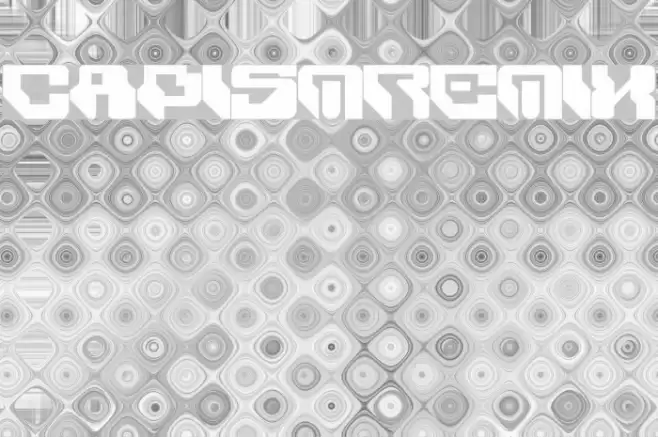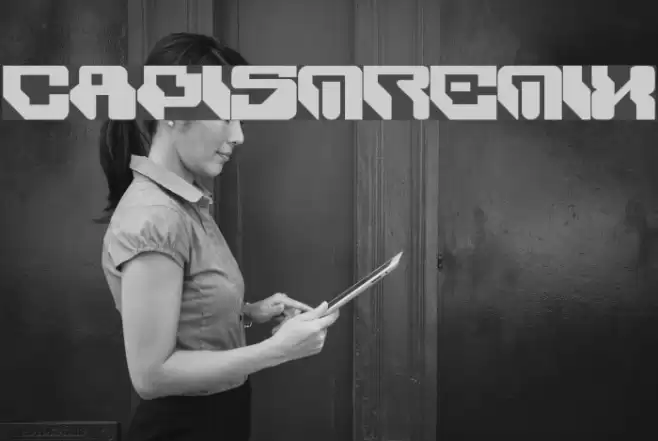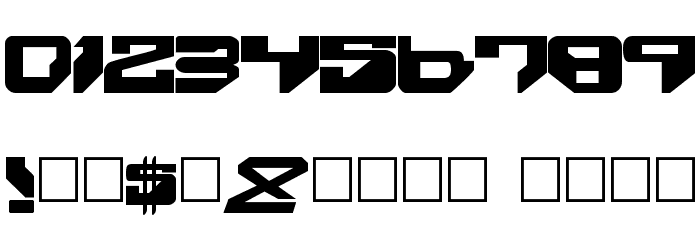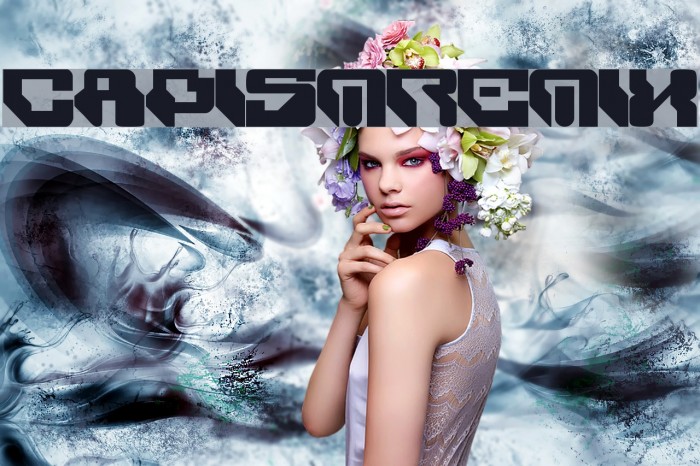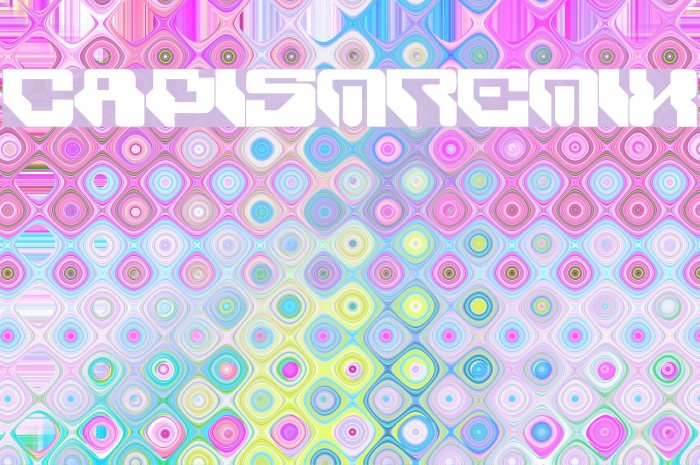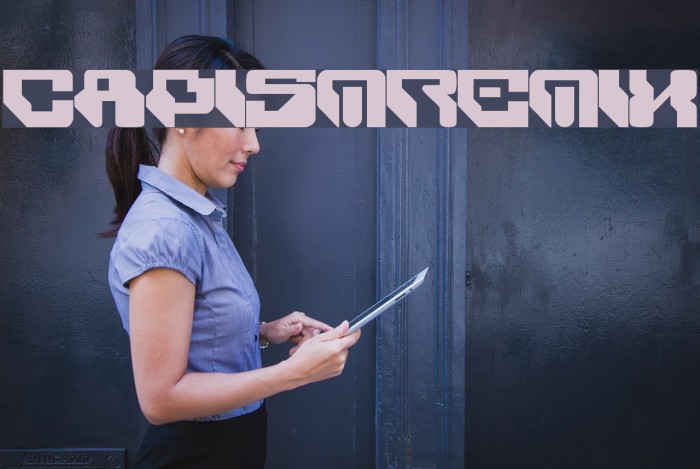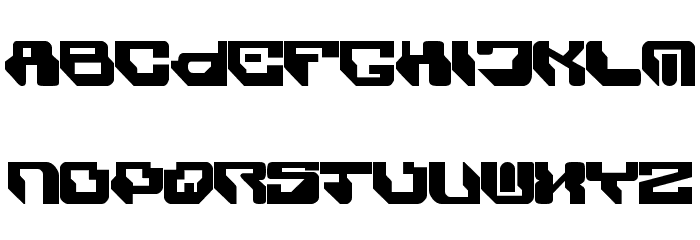
CaptivSystMRemiX Font
CaptivSystMRemiX Description
This font features a bold, futuristic design with sharp angles and geometric shapes that create a striking visual impact. The uppercase and lowercase letters share a consistent style, emphasizing angular cuts and a blocky appearance. Numbers and special characters maintain this cohesive aesthetic, making the font suitable for modern and tech-oriented designs. The bold weight and high contrast between thick and thin strokes enhance its readability and presence, ideal for attention-grabbing headlines or logos.
A bold, futuristic font with sharp angles and geometric shapes from Uncategorized fonts.
- Proposed Projects: Ideal for technology branding, sci-fi movie posters, video game titles, and modern digital interfaces.
- Overall Style: Futuristic